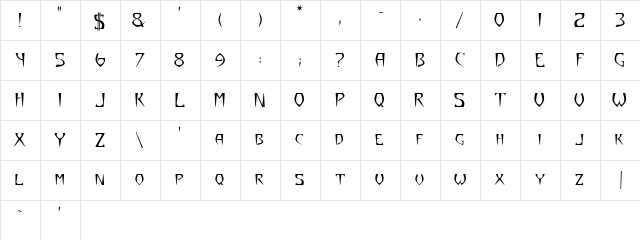
Yazata!" Regular
Design Context for Yazata!" Typeface
Yazata!" is a composed and adaptable typeface that performs quietly and consistently across a wide range of design contexts.